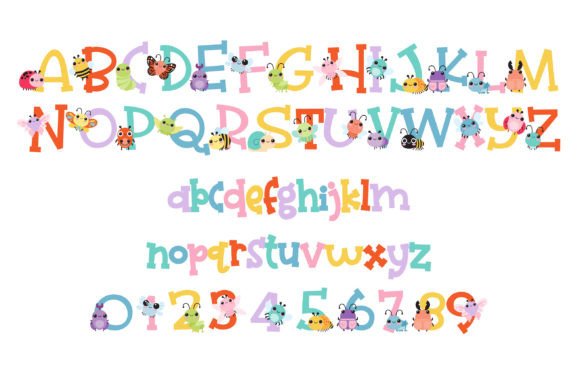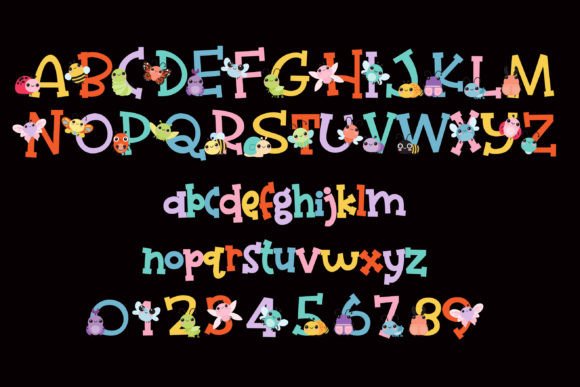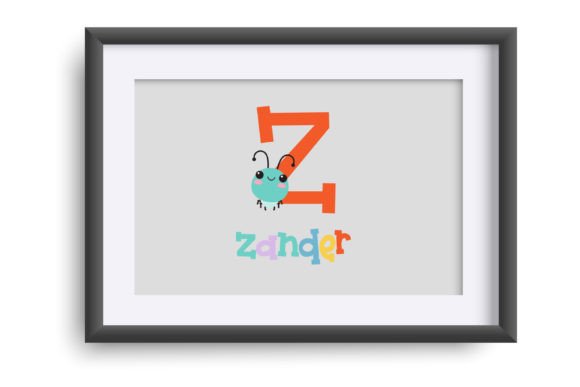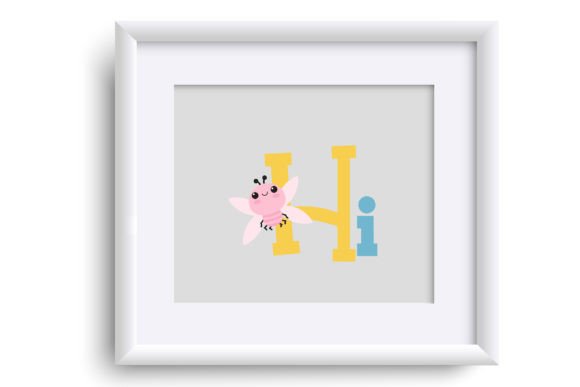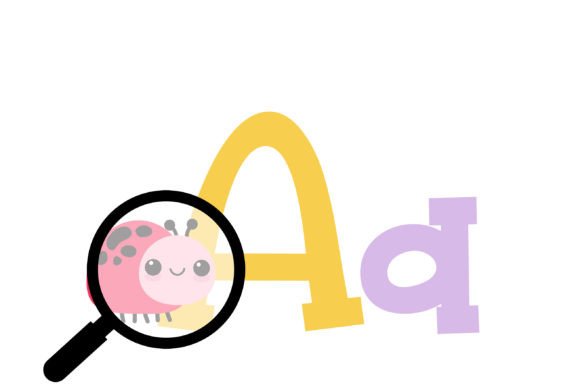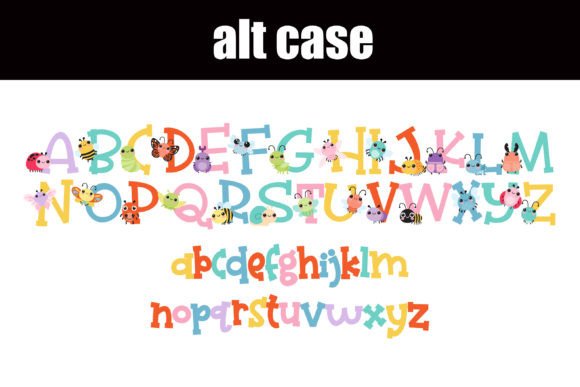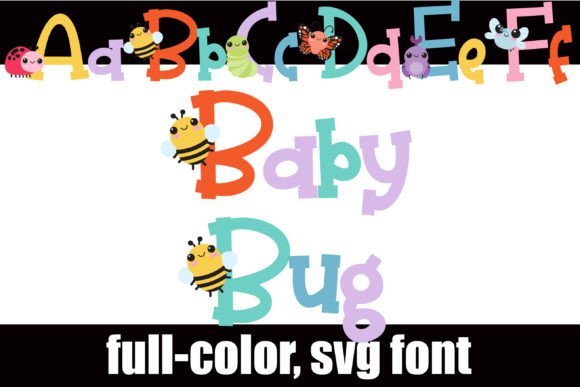
Baby Bug Font: A Whimsical Serif Font for Designers and Crafters
Are you looking for a unique and playful font to add a touch of whimsy to your designs? Look no further than the Baby Bug Font! This full-color font features a charming serif font with butterflies and bugs in a vibrant summer color palette, perfect for creating eye-catching titles, displays, posters, and more.
What Makes Baby Bug Font Special?
The Baby Bug Font is a one-of-a-kind font that combines a classic serif font with colorful illustrations of butterflies and bugs. The font features a range of colors that evoke the feeling of a warm summer day, making it perfect for designs that require a playful and carefree touch. The font also includes an alternative case with additional colors that can be accessed through your system or Silhouette’s glyph map.
Tips for Using Baby Bug Font
Here are a few tips for getting the most out of the Baby Bug Font:
• Use it for titles and displays: The Baby Bug Font is perfect for creating eye-catching titles and displays that will grab attention.
• Experiment with different colors: While the font comes with a pre-set color palette, you can experiment with different colors to create unique effects.
• Pair it with other fonts: The Baby Bug Font pairs well with other serif fonts, so feel free to experiment with different combinations.
The Baby Bug Font is a unique and playful font that’s perfect for designers and crafters who want to add a touch of whimsy to their designs. With its colorful illustrations of butterflies and bugs, this font is sure to delight audiences of all ages. Whether you’re creating titles, displays, posters, or more, the Baby Bug Font is a great choice. So why not give it a try and see what creative possibilities it offers?